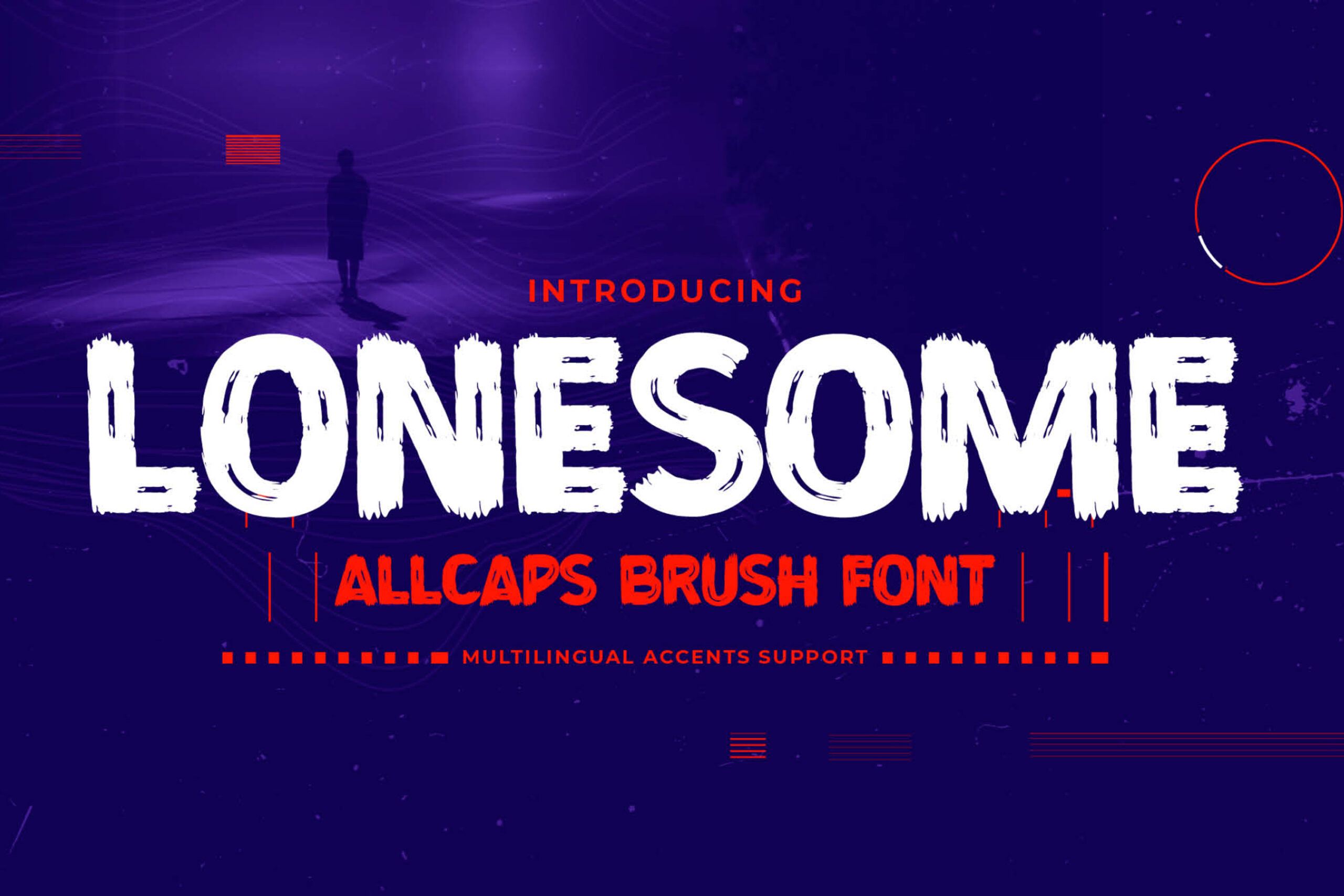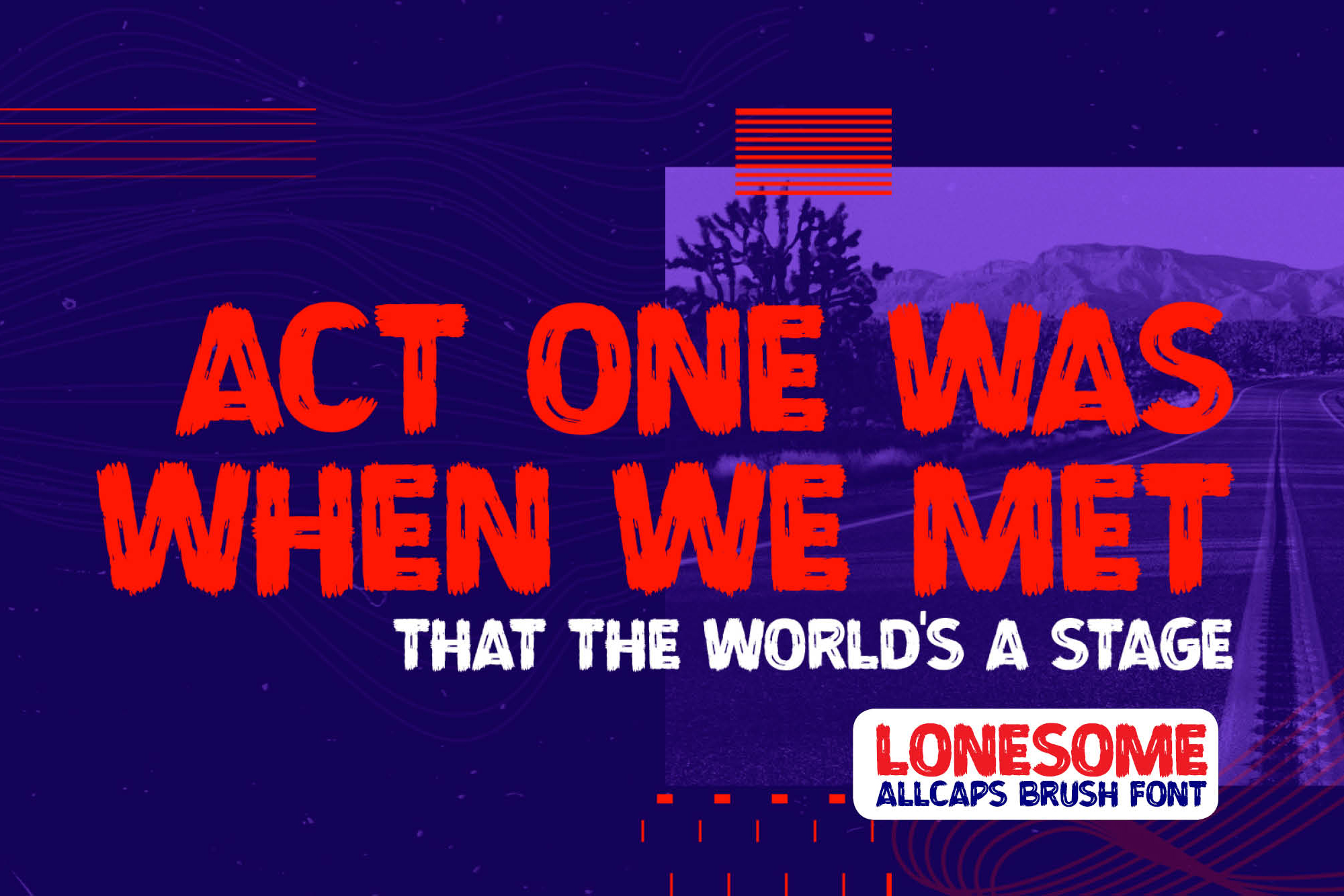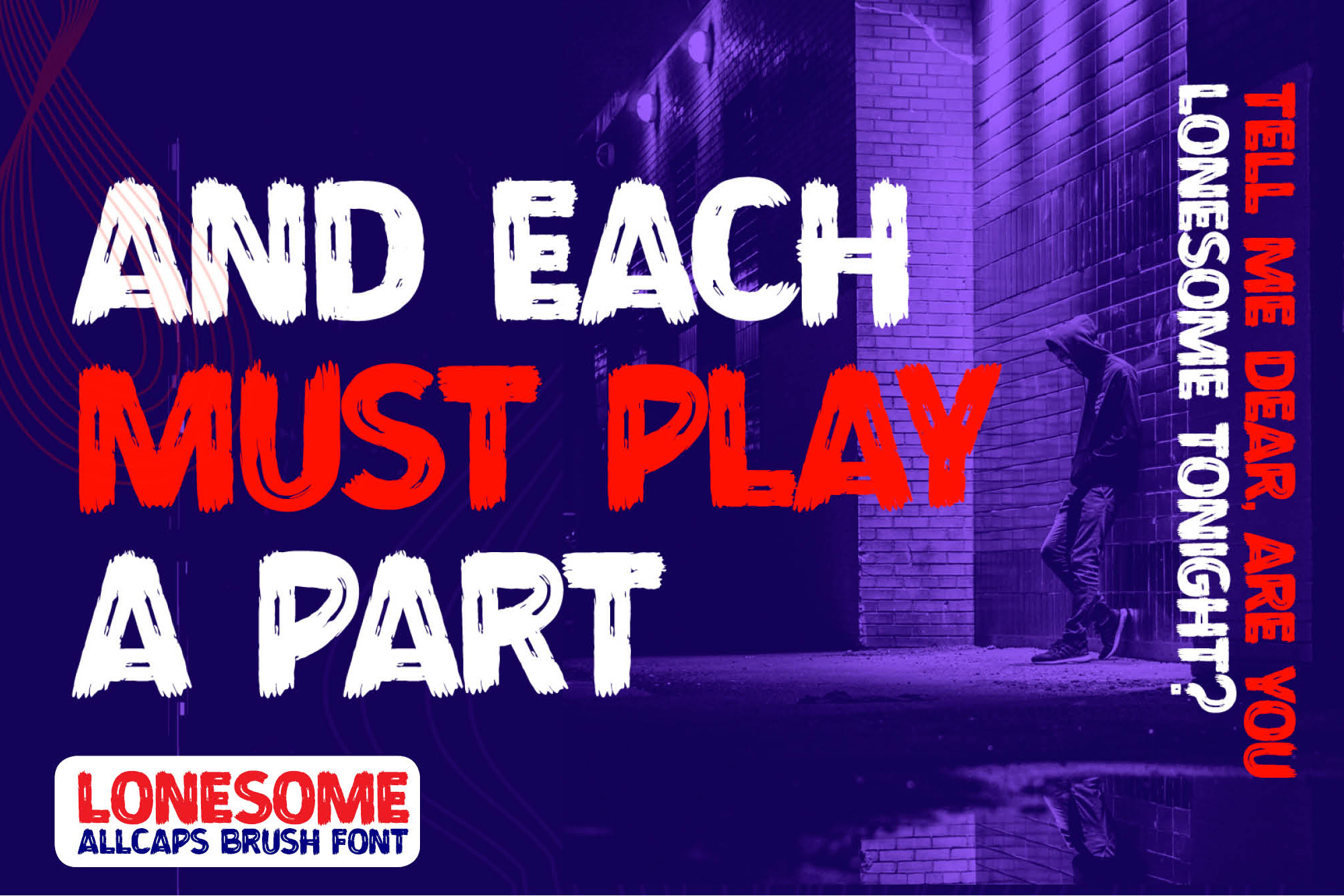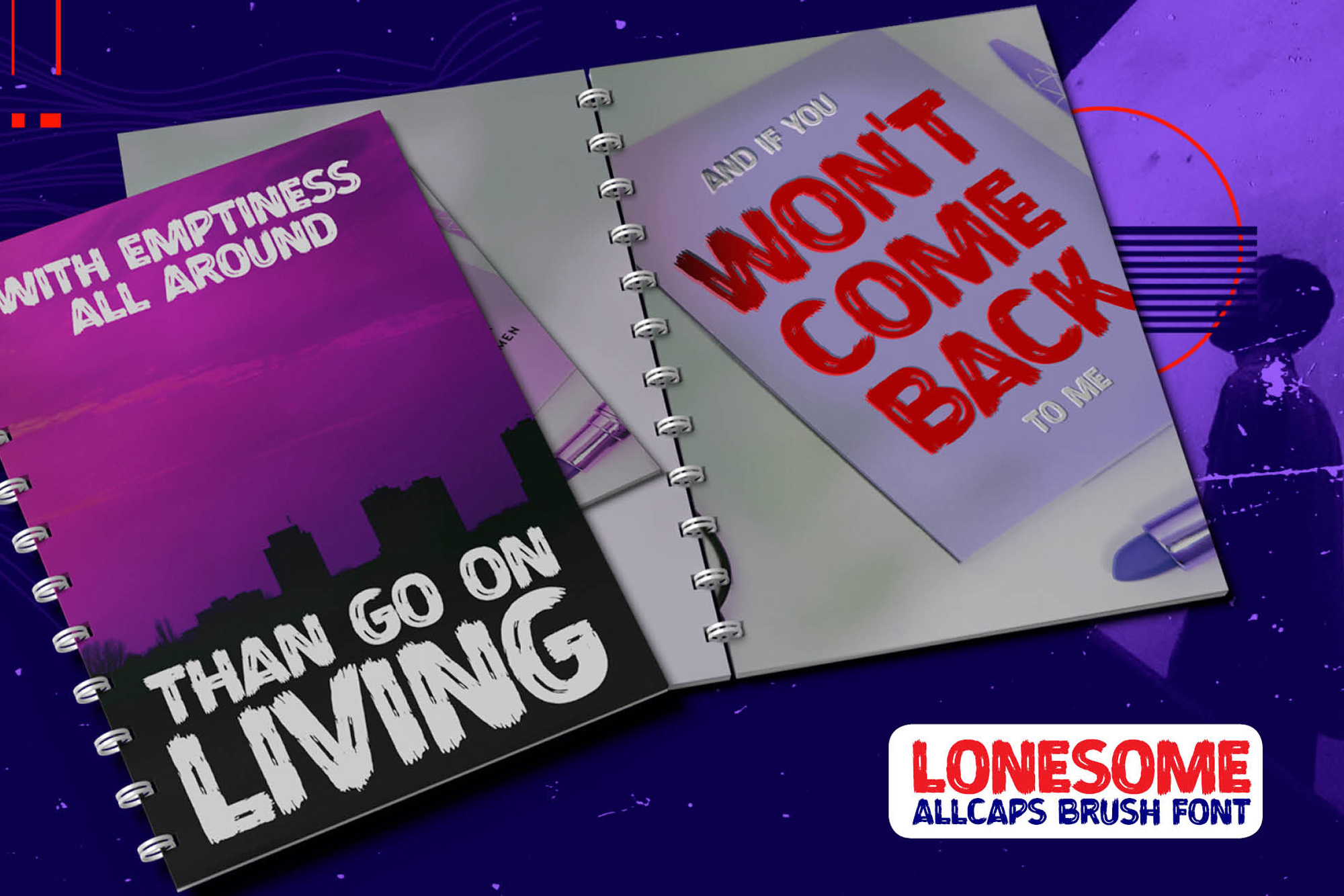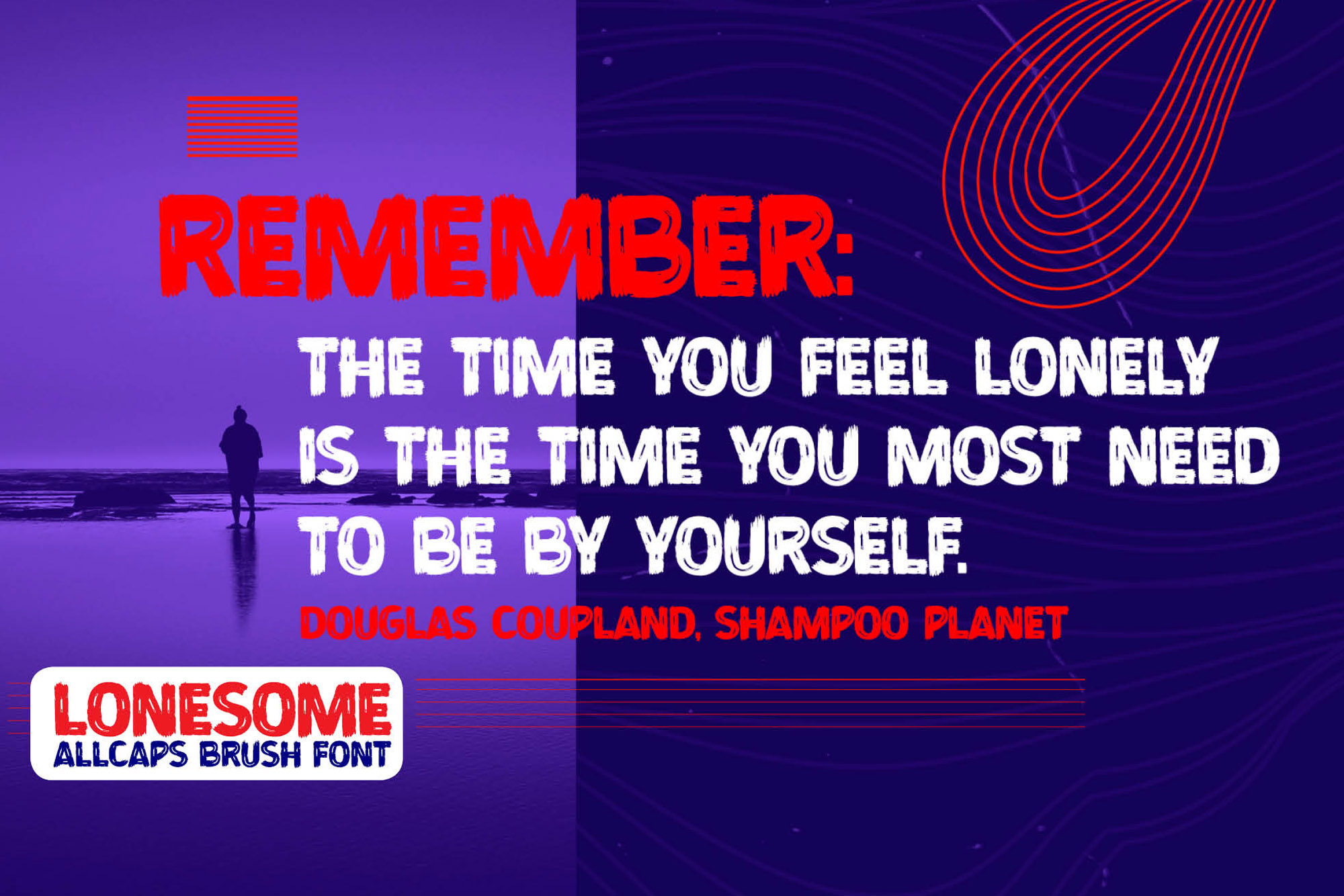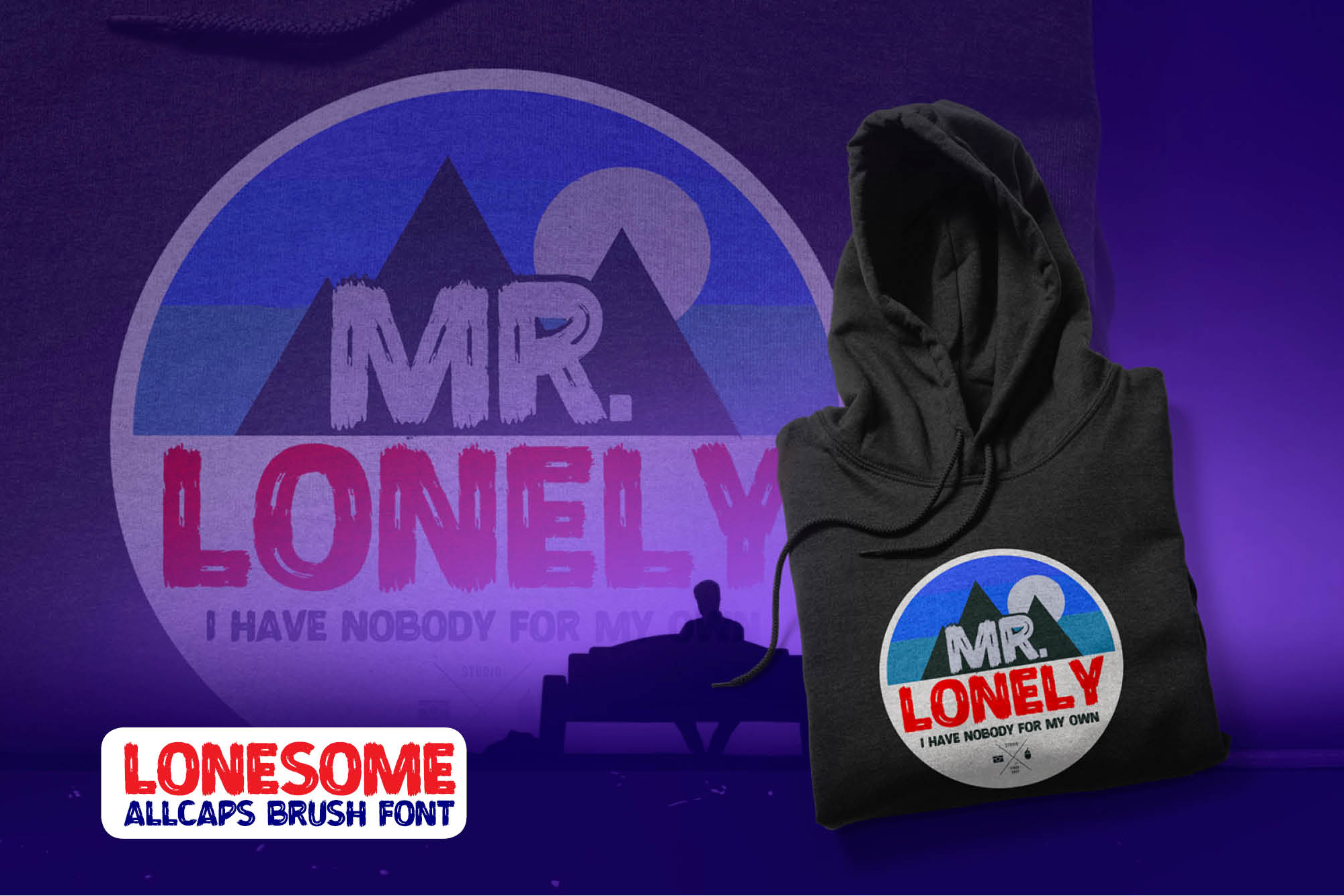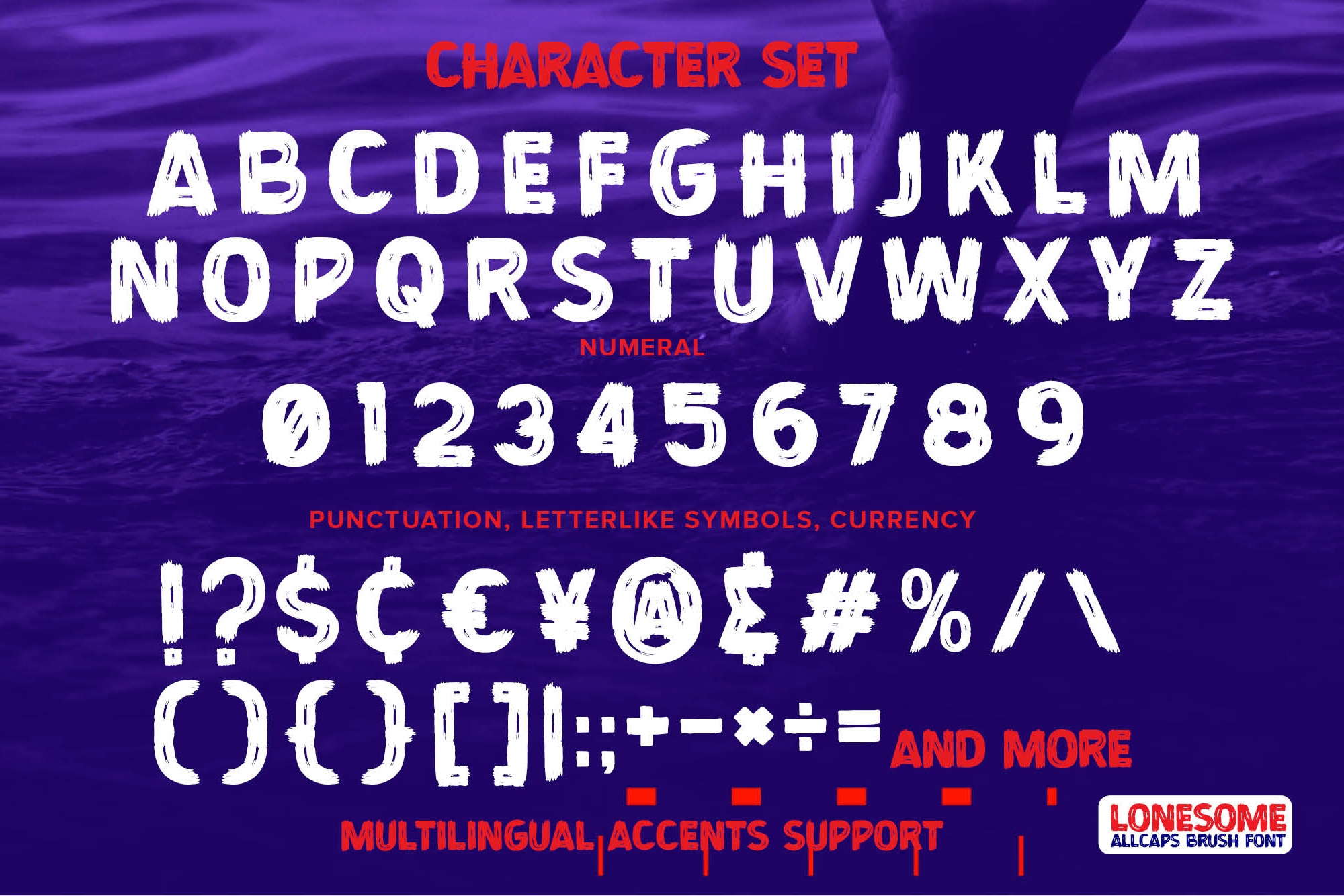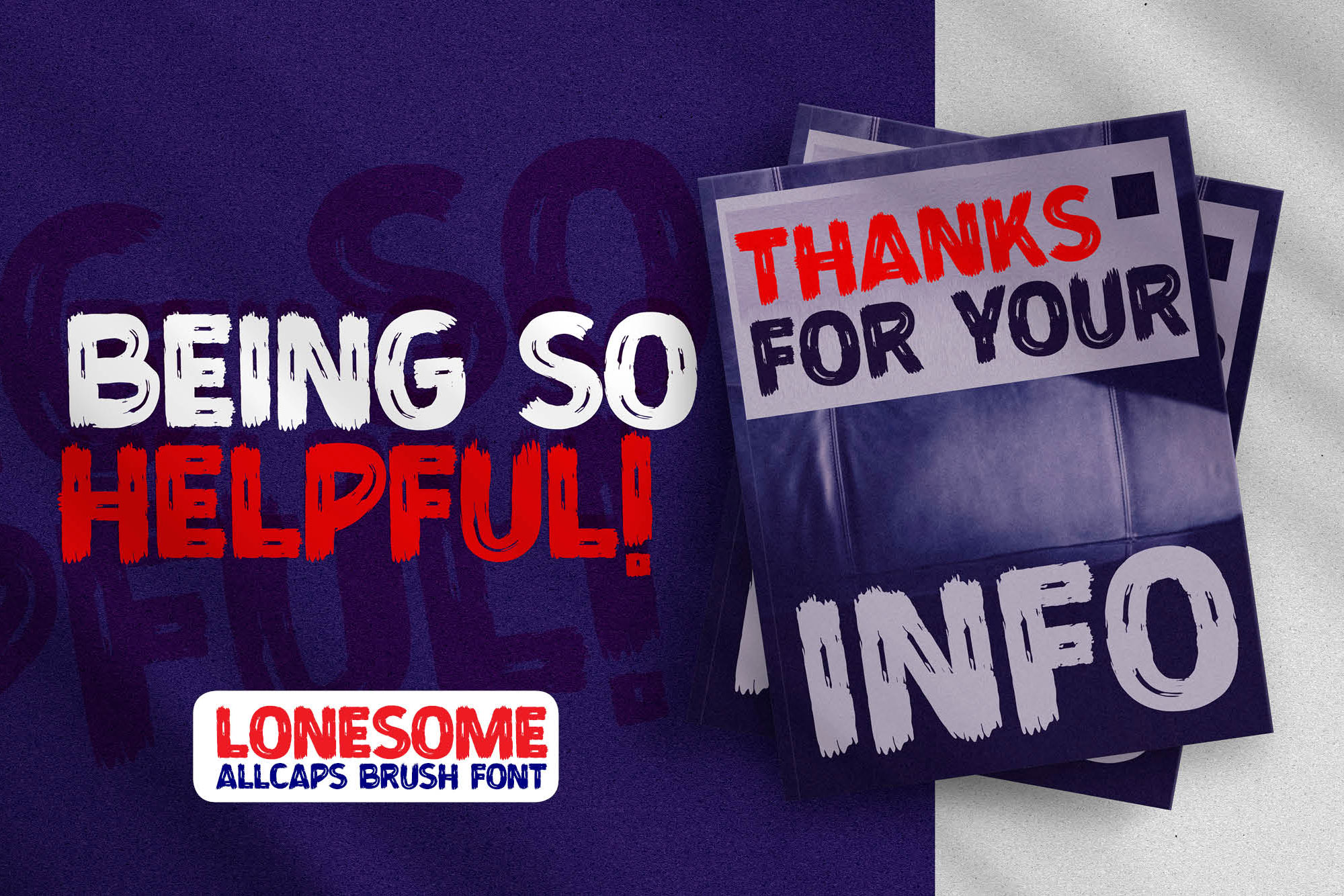
LONESOME – All Caps Brush Font, modern style and dramatic movement that is written casually and quickly.
The best for labels ,poster ,project designs look modern, authentic and unique. It’s perfect for labels, quotes, posters, DIY projects, branding, packaging, greeting cards, websites, photography overlays, signs, scrapbooking, tags and so much more! That is why LONESOME has a textured, and strong characteristic more natural look.